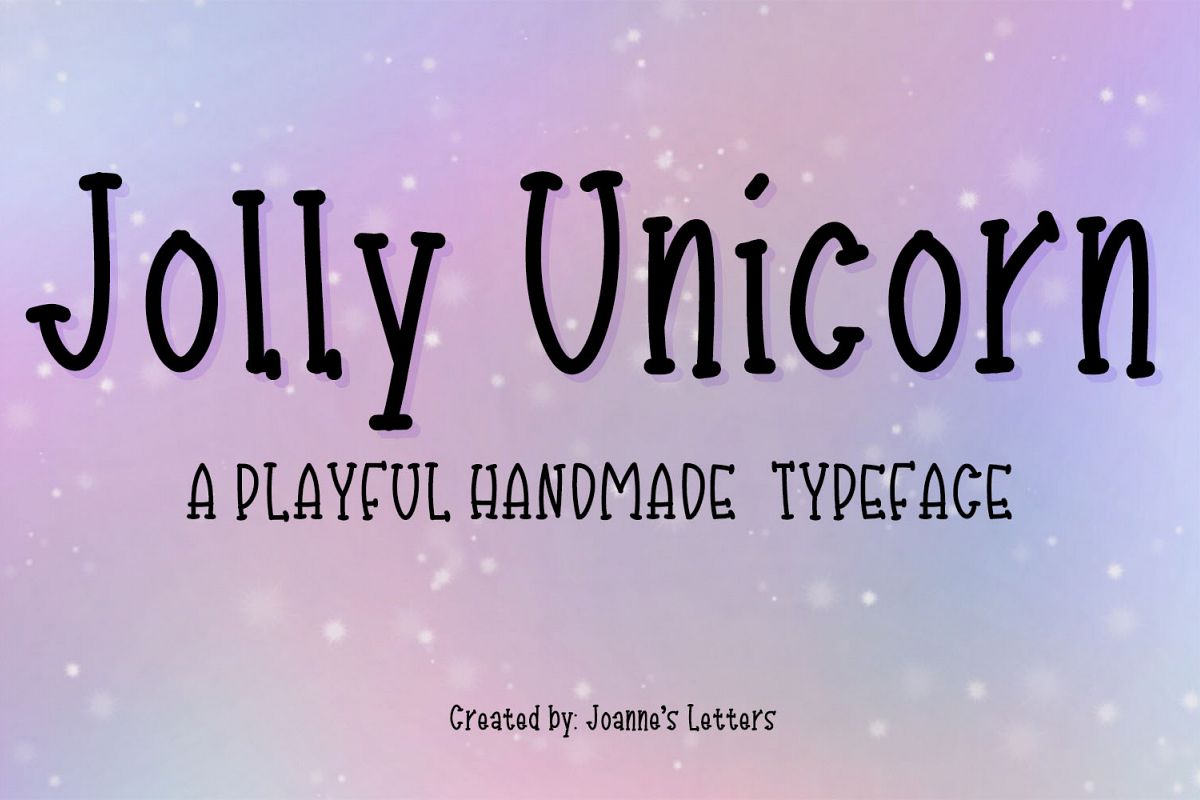
Jolly Unicorn A playful handmade typeface
Introducing: Jolly Unicorn Font!
A fun and relaxed serif font for chill project and design mood! This comes with three discretionary ligatures for ee, ff, and tt. Jolly Unicorn is perfect for branding projects, homeware designs, product packaging, use in name card, invitation cards, etc. Simply as a fun text overlay to any background image or anything requiring a sprinkle of handmade goodness.